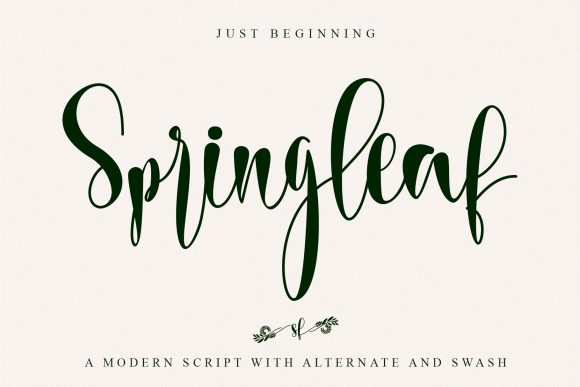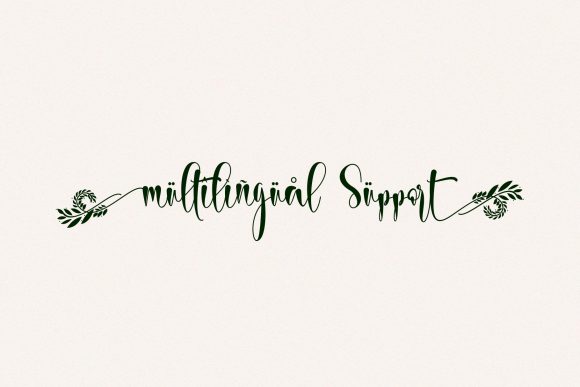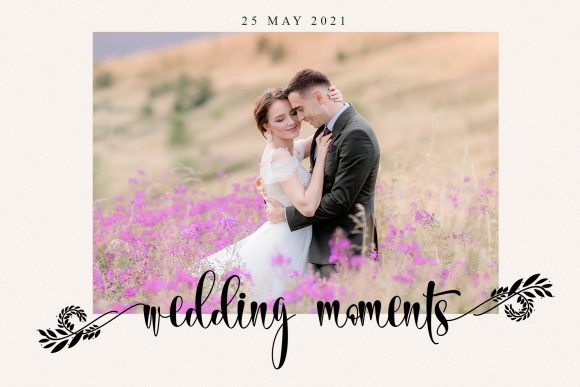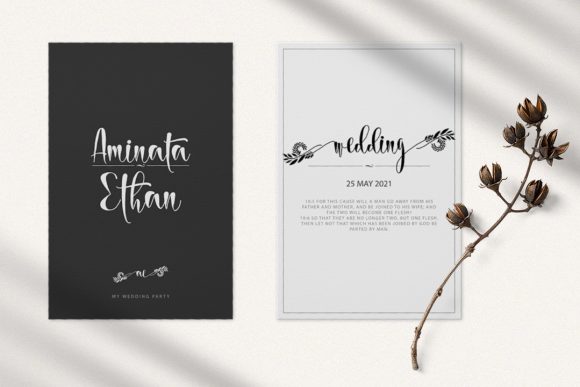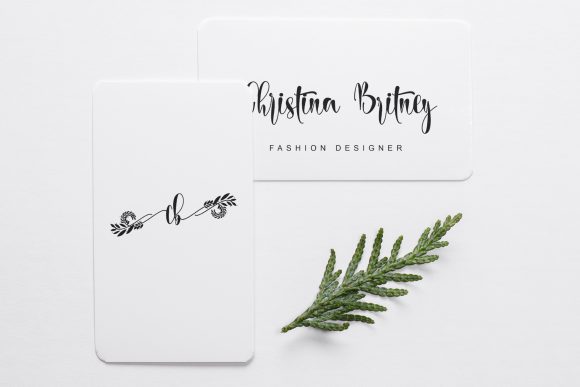
Springleaf is a refined and delicate handwritten font. Whatever the topic, this font will be a wonderful asset to your font library, as it has the potential to enhance any creation. This font is PUA encoded which means you can access all of the glyphs and swashes with ease!